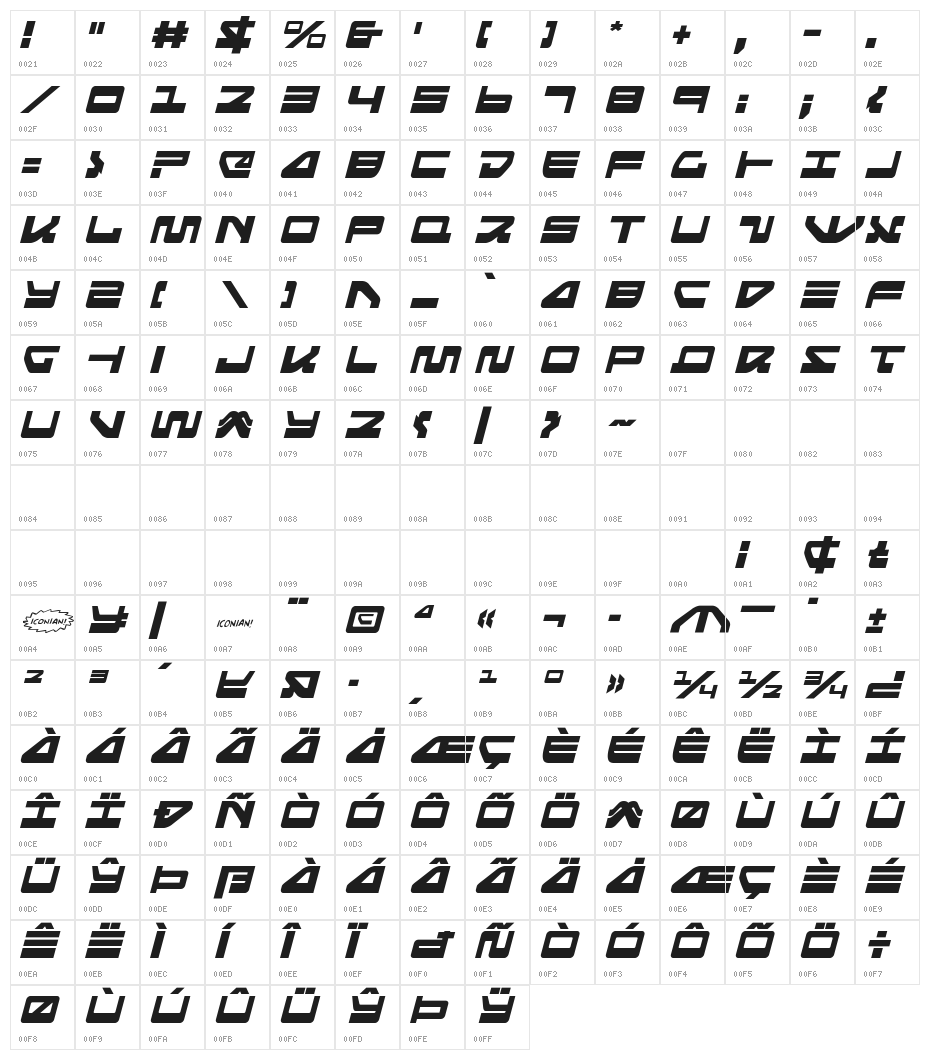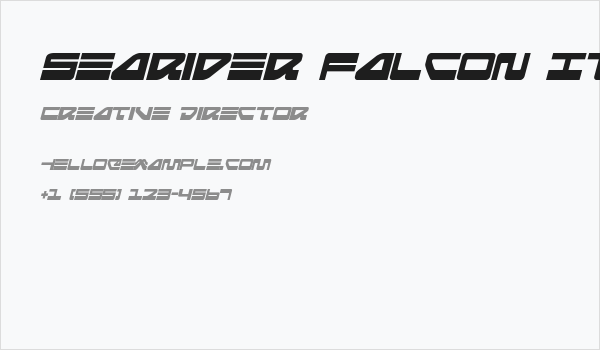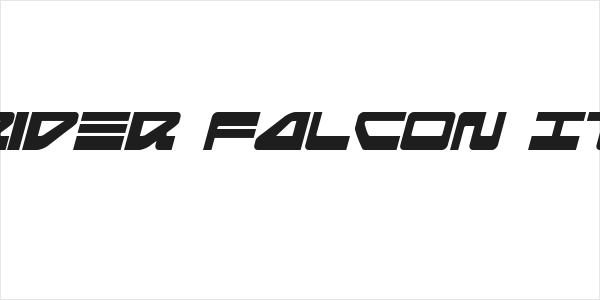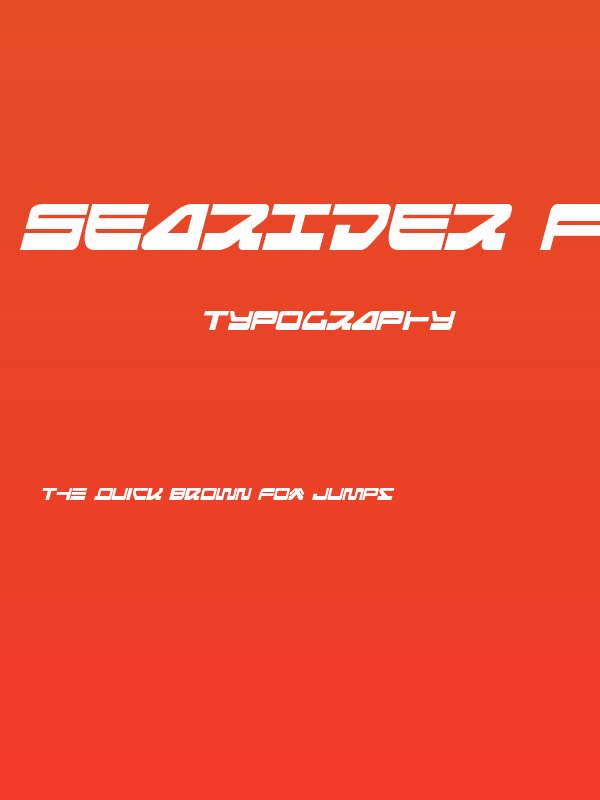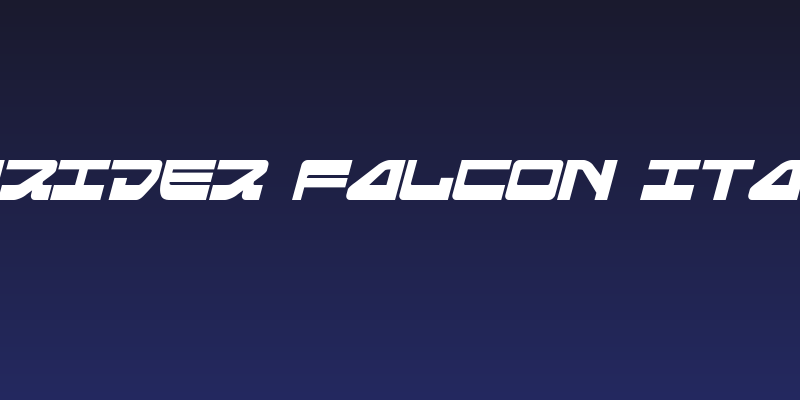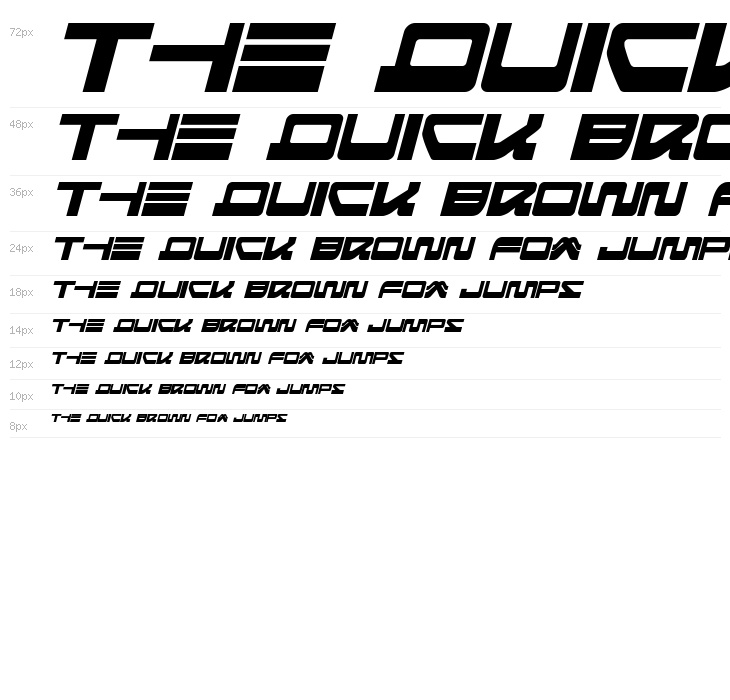
Searider Falcon Italic Font
Searider Falcon Italic Description
This font features a dynamic and futuristic design with sharp, angular edges and a forward-leaning italic style. The characters are bold and impactful, with a distinct geometric structure that conveys a sense of speed and modernity. The uppercase and lowercase letters maintain a consistent style, while the numerals and special characters complement the overall aesthetic. The font's unique design makes it suitable for projects that require a strong visual presence and a contemporary feel.
| Proposed Projects | Ideal for sci-fi themed designs, video game titles, technology branding, and dynamic posters. |